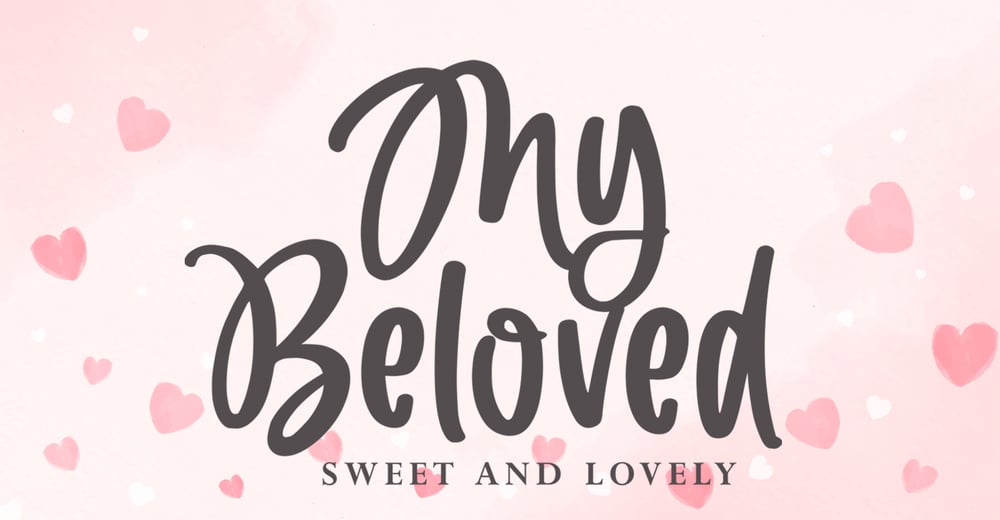
My Beloved
My Beloved font
My Beloved Font Family was designed by Rangga Subekti and published by Subectype. My Beloved contains 1 styles and family package options. My Beloved is a delicate and flowing handwritten font. It looks stunning on wedding invitations, thank you cards, quotes, greeting cards, logos, business cards and every other design which needs a handwritten touch.